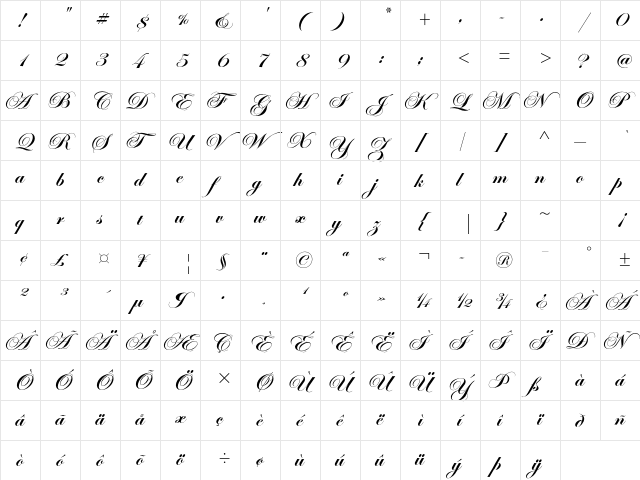
Edwardian Script ITC Std Bold Font Preview
| Designer | Edward Benguiat |
Design Context for Edwardian Script ITC Std Typeface
Edwardian Script ITC Std brings a calligraphic fluidity to the page — its connecting strokes and expressive curves give it an unmistakably human quality. Its bold stroke weight gives it real presence on the page.
Font Pairing: Combine Edwardian Script ITC Std with a simple geometric sans for maximum contrast — the tension between flowing curves and clean structure is a classic typographic pairing.
Pro Tip: Pair Edwardian Script ITC Std with a clean sans-serif for supporting text. The contrast between fluid script and geometric structure creates an elegant typographic hierarchy.